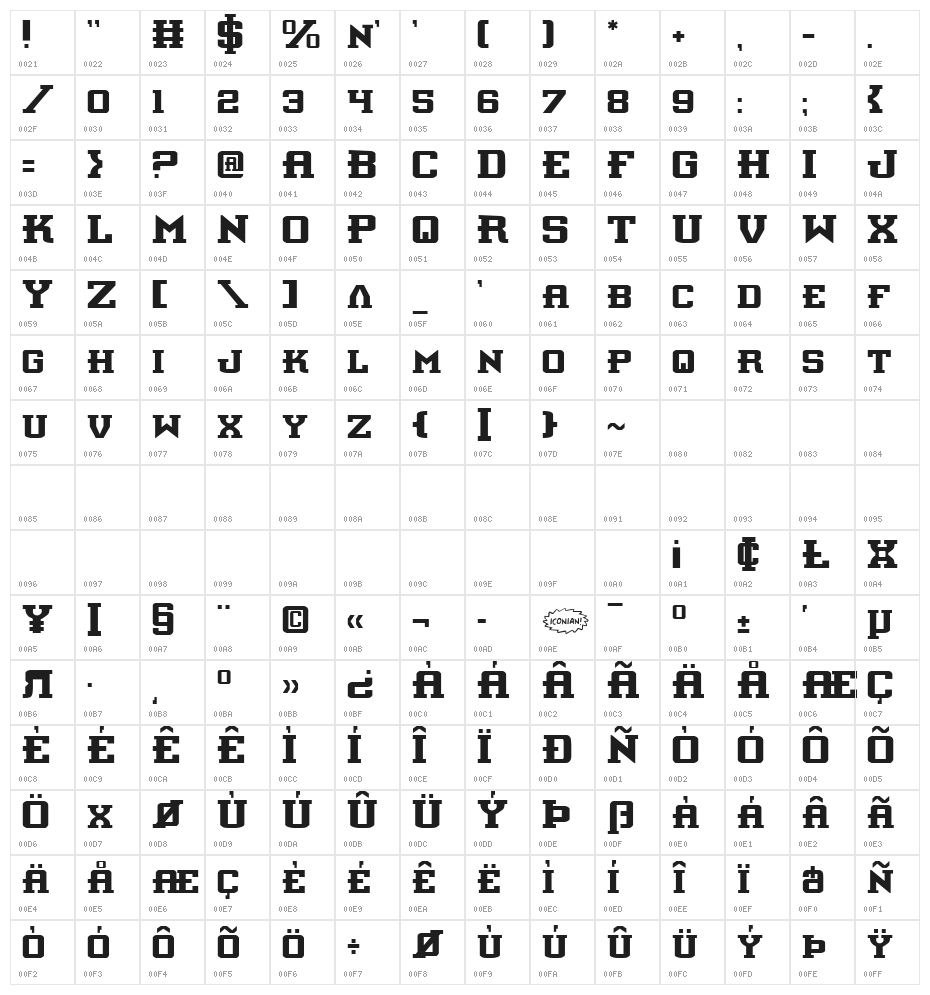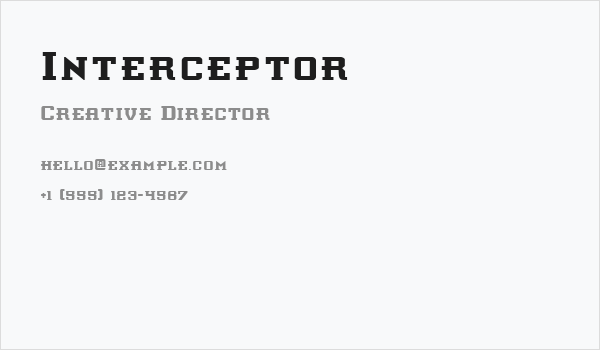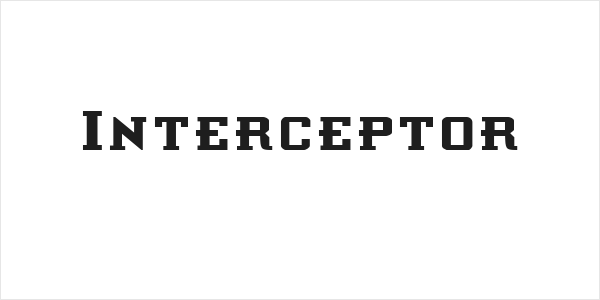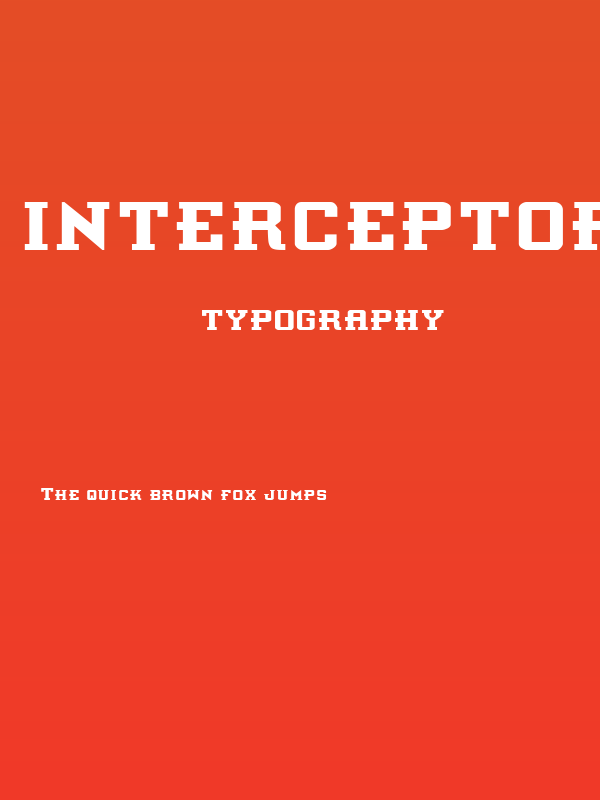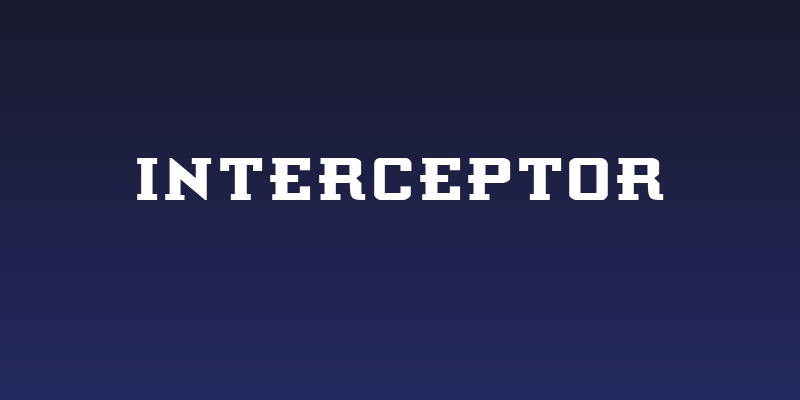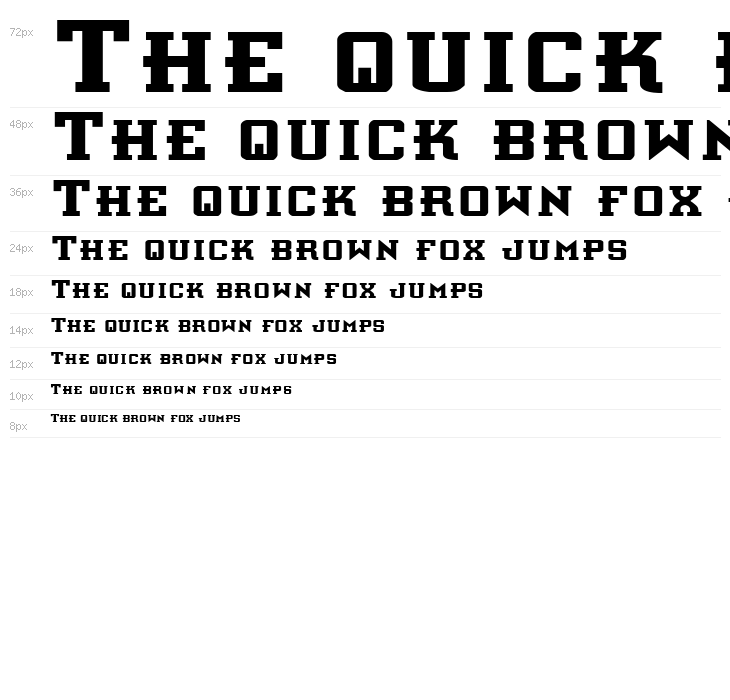
Interceptor Font
Interceptor Description
This font exhibits a bold and robust design with a strong presence, characterized by its blocky and geometric letterforms. The uppercase and lowercase letters maintain a consistent weight, giving the font a uniform appearance. The characters are designed with sharp angles and straight lines, creating a sense of strength and stability. The numbers and special characters follow the same design principles, ensuring a cohesive look across all glyphs. This font's style is reminiscent of industrial and military aesthetics, making it suitable for projects that require a bold and assertive typeface.
| Overall Style | Industrial |
| Proposed Projects | Ideal for use in branding, posters, headlines, and any design requiring a bold, impactful typeface. |